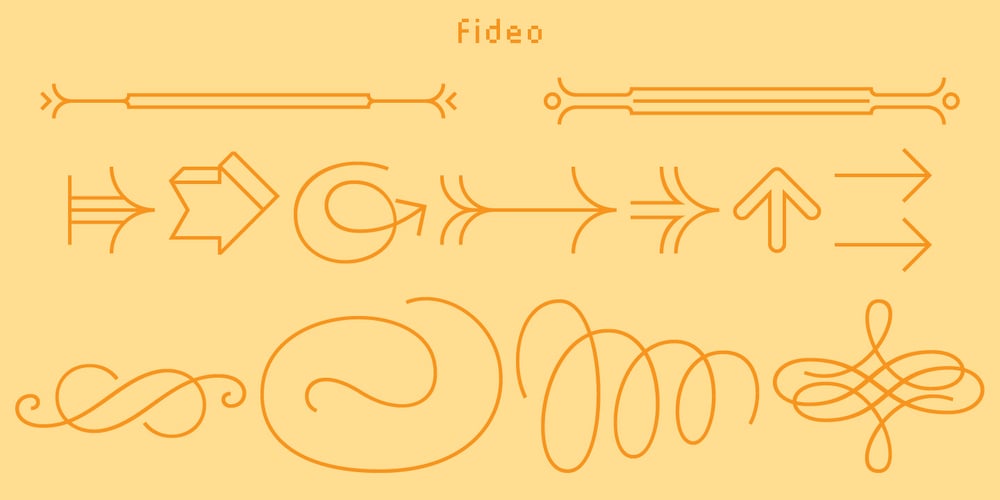
Fideo
Fideo font
Fideo Font Family was designed by Miguel Ángel Padriñán Alba and published by Ayi Studio. Fideo contains 3 styles and family package options. Font family designed for ornament use in texts, with three variants, arrows, dividers and ornaments.